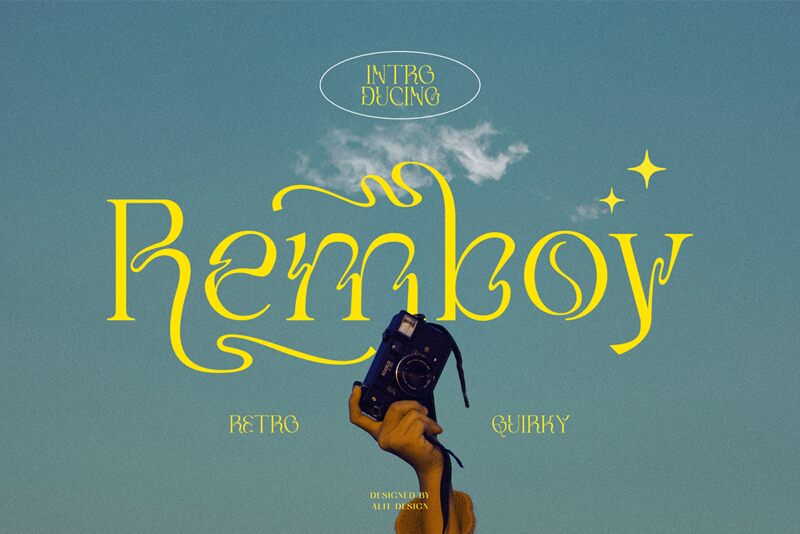
Remboy, a captivating display font by Alit Design, effortlessly combines retro vibes with a touch of nostalgia. With its semi-light weight, this font gracefully adds a vintage flair to any creative project. Perfect for poster designs, album covers, and logo branding, Remboy transports viewers back in time while maintaining a modern edge. Its distinct retro style captivates attention and evokes a sense of timeless elegance. Embrace the allure of the past and let Remboy transport your projects to new heights with its unique charm.
Remboy